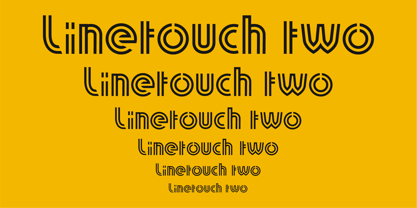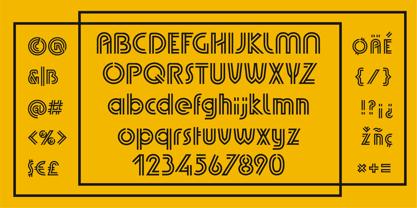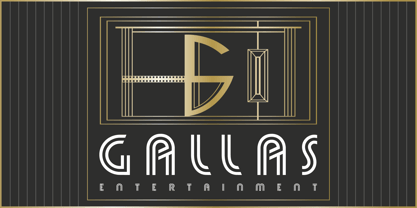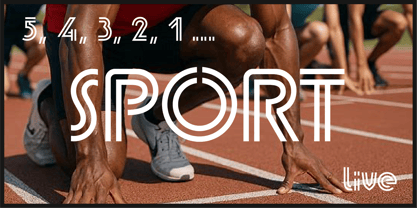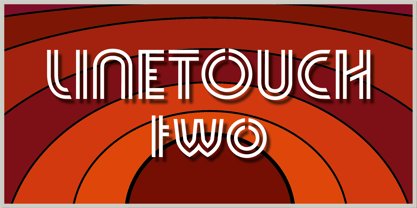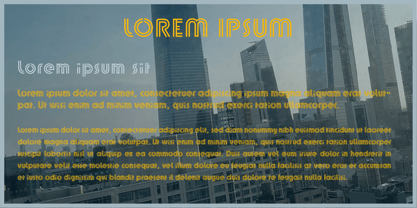
Linetouch Two
by JC Creation Design
The Linetouch Two Font Family was designed by JC Mehring and published by JC Creation Design. Linetouch Two contains 1 styles. More about this family
Linetouch Two is a multi-stroke glyph typeface inspired by the Art Deco style, giving it a slightly retro feel. It is particularly well-suited for logos and headlines, poster and label design, as well as for personalizing t-shirts and other promotional items. Its uppercase and lowercase characters, with or without accents, also allow for its use in short texts.
Designers: JC Mehring
Foundry: JC Creation Design